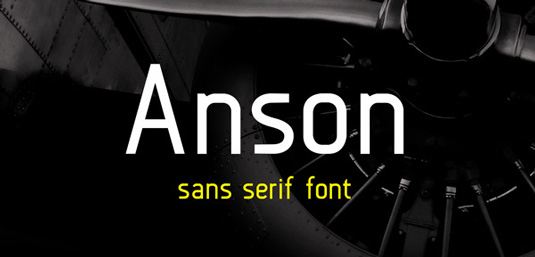
Font of the day: Anson
Anson by Mikko Nuuttila
This free, sans serif font Anson was created by Finland-based designer Mikko Nuuttila. The design is named after the British twin-engine, multi-role aircraft Avro Anson and features 188 glyphs, including a full set of upper and lowercase letters and numbers.